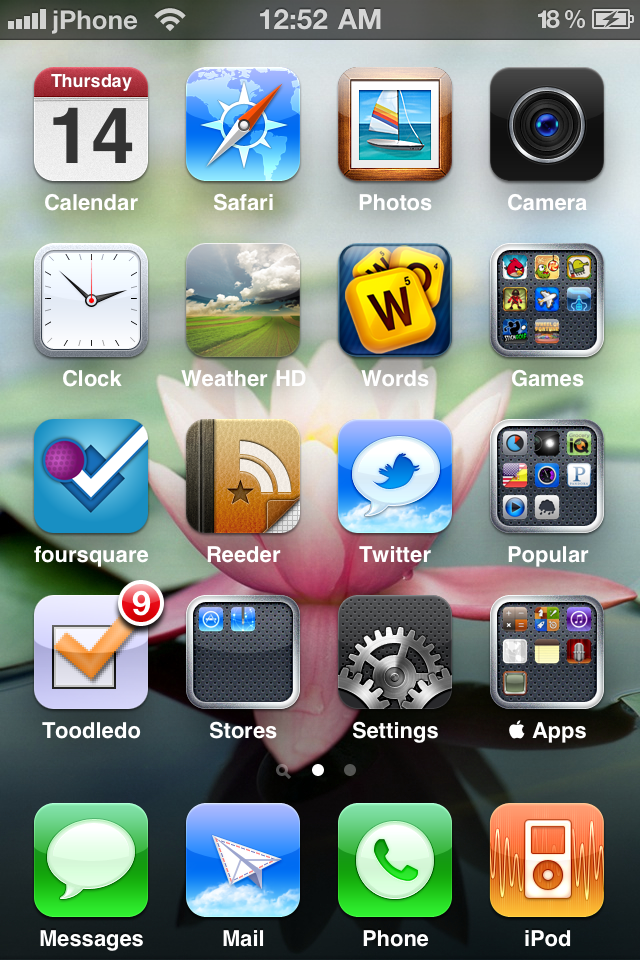
I just enabled battery percentage and the two numbers appear to be two different fonts. Strange to be sure. I'm new to the jailbreak scene, anyone know what could be causing this? It doesn't seem to be happening with numbers in the 20s. (I'm monitoring as my iPhone charges.)
Also, feel free to tell me that I'm crazy and it's not an issue at all. I'm cool with that.
Try disabling winterboard if you're using it. See if that's the culprit.
Yea, I suspected that might be the problem, I just uninstalled it, actually. That app has given me quite a few problems in the past day I've had my iPhone jailbroken.
I can live without shiny icons.
Unfortunately, Winterboard wasn't the problem...
Actually, I think this is a problem with iOS 4.1 itself. I didn't pay attention to 18% (the only percent with this problem) on 4.0.2, but ever since I upgraded to 4.1 (not jailbroken), I've noticed this weird glitch. You're not crazy! :]
Really? Hmmm... I don't use battery percentage very much. It looks like only the percentages beginning with 1 have this problem.
It's always like that.
I'm on 4.0.1.
That's so crazy... I was looking at pictures from Goole of iPhones with percentage enabled and they all seem to have this larger '1'. Why wouldn't they fix this?